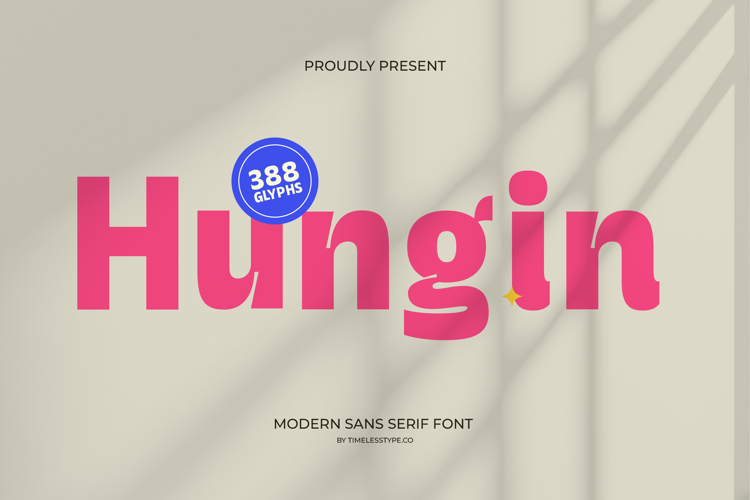
Hungin - Modern Sans Serif Font
Elevate your designs with the distinctive presence of Hungin - Modern Sans Serif Font, a typeface meticulously crafted for impactful visual communication. This contemporary sans serif radiates a perfect blend of modernity and approachable charm, making it an outstanding choice for any project demanding both sophistication and friendly appeal. Its clean lines and robust structure ensure exceptional readability across all mediums, from print to digital.
Experience unparalleled clarity and style with Hungin - Modern Sans Serif Font, characterized by its bold character and unmistakable geometric foundation. Each glyph is designed to convey confidence and professionalism, while subtle curves add a touch of inviting warmth. This font excels at creating strong visual statements without sacrificing legibility, commanding attention effortlessly in headlines, logos, and display text.